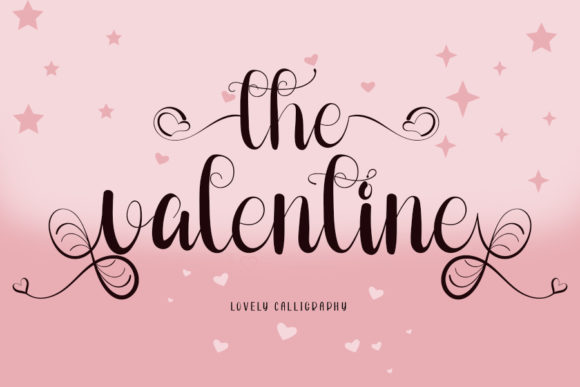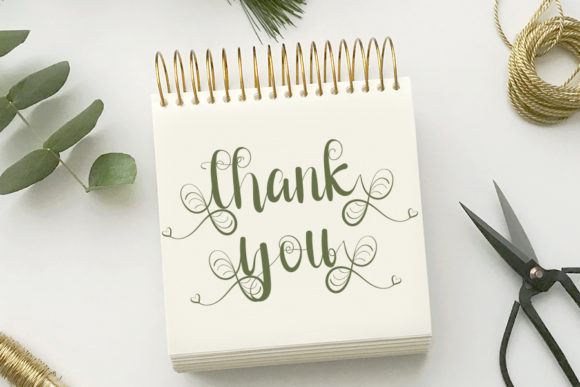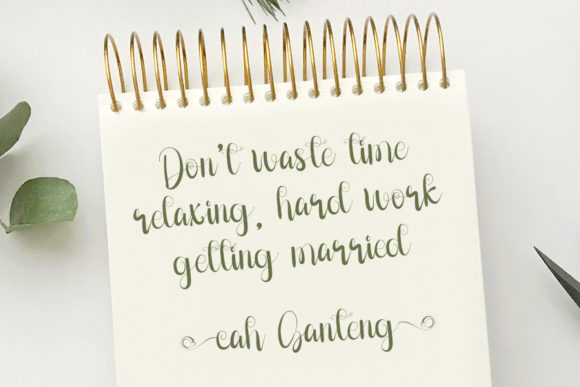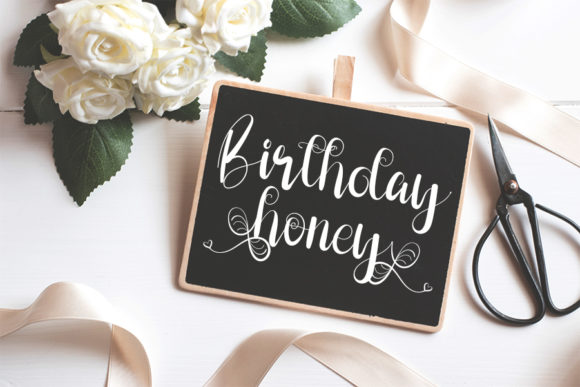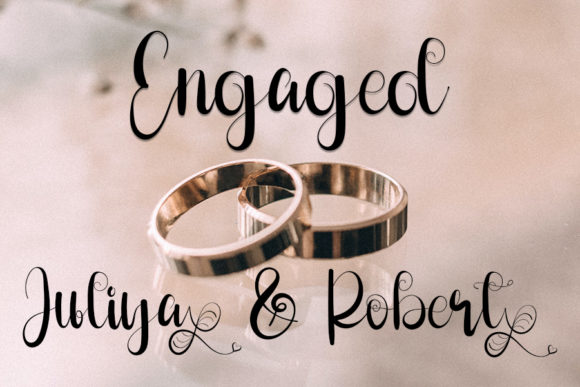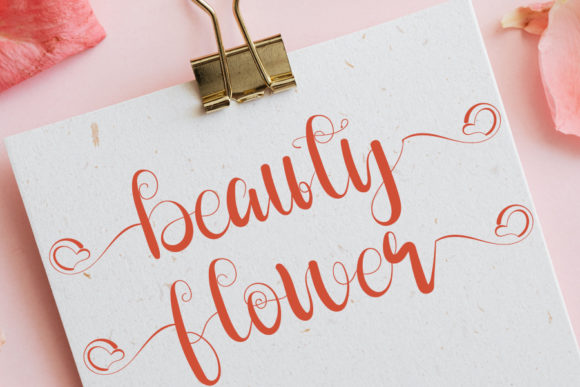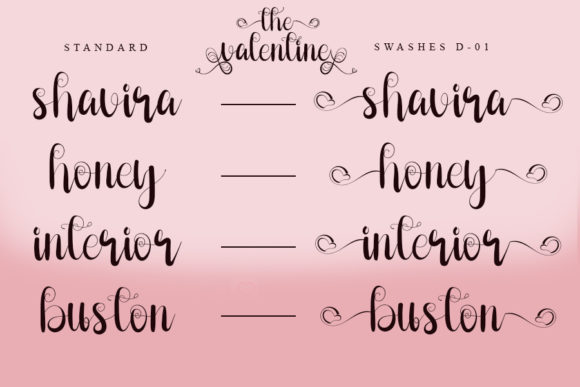
The Valentine Font
About The Valentine Font
The Valentine is an enchanting and neat handwritten font. It is defined by smooth curves and is perfect for fashion branding or editorial designs. This font is PUA encoded which means you can access all of the glyphs and swashes with ease!